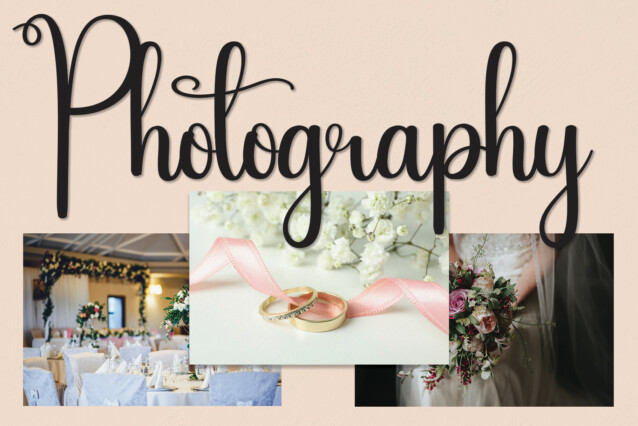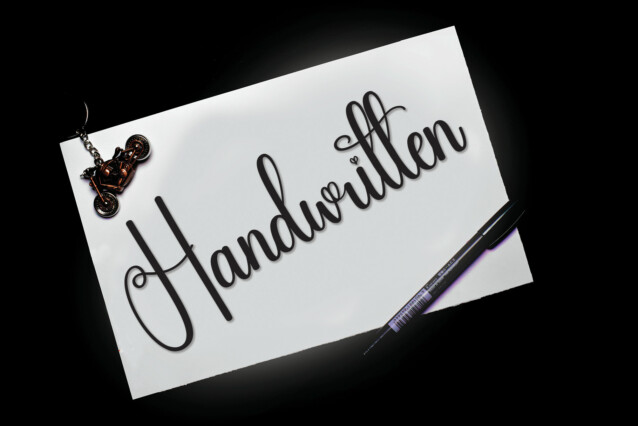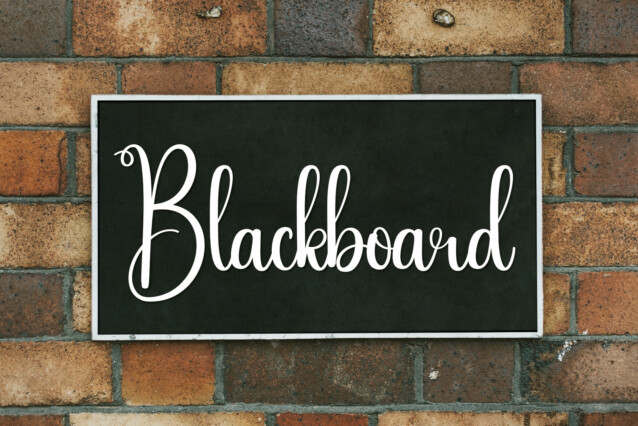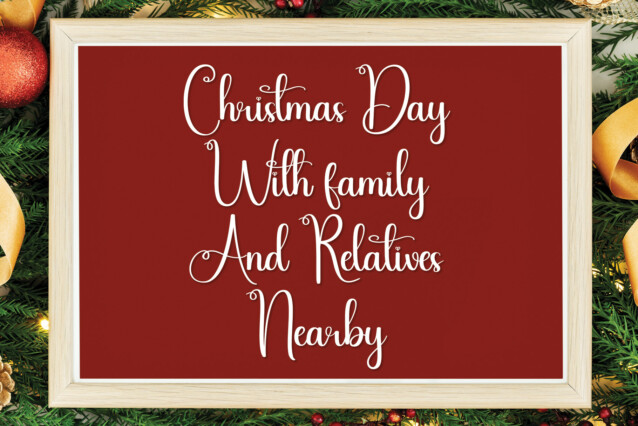
Wedding Handwritten Font
Wedding Handwritten Font is an enchanting handwritten font. This versatile script font has a wide spectrum of applications ranging from greeting cards to headlines and is guaranteed to add a romantic feel to your next project.